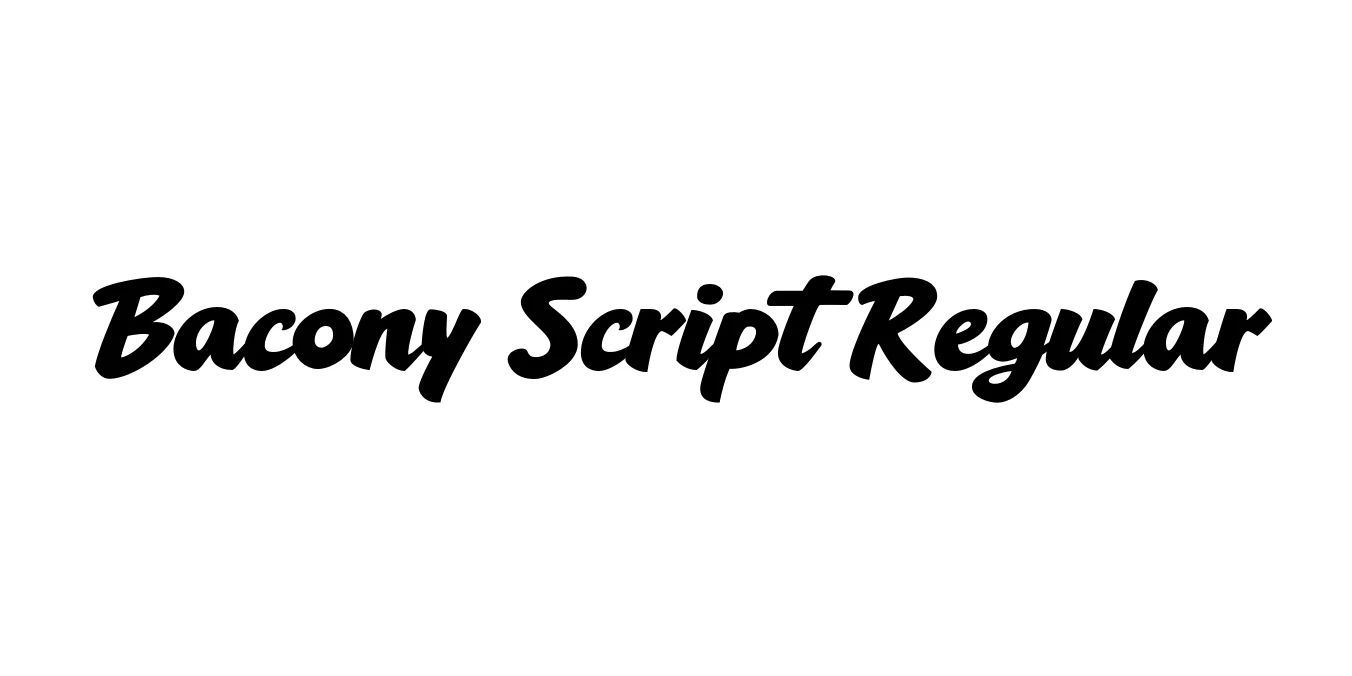
Bacony Script Regular
Designed by Hindia Studio
Bacony Script Regular is a beautifully crafted modern calligraphy typeface that exudes elegance and a personal touch. Characterized by its fluid, hand-drawn strokes and natural flow, this font captures the essence of sophisticated handwriting. It bridges the gap between traditional penmanship and modern digital design, making it a versatile choice for designers looking to add warmth and character to their creative projects.
Designed with versatility in mind, Bacony Script is particularly effective in high-end branding, promotional materials, and event stationery. Whether it is used for a luxury logo or a heartfelt greeting card, the font maintains its legibility while providing a distinct aesthetic appeal. Its rhythmic baselines and subtle flourishes allow it to stand out in both print and digital mediums, ensuring a professional yet intimate finish.
Bacony Script Regular Best Uses
Perfect for creating romantic and sophisticated event stationery.
Ideal for lifestyle, fashion, and beauty brand identities.
Excellent for crafting inspirational quotes and engaging visual content.
Provides a unique, handcrafted look for professional wordmarks.
Adds a premium feel to product labels and gift boxes.